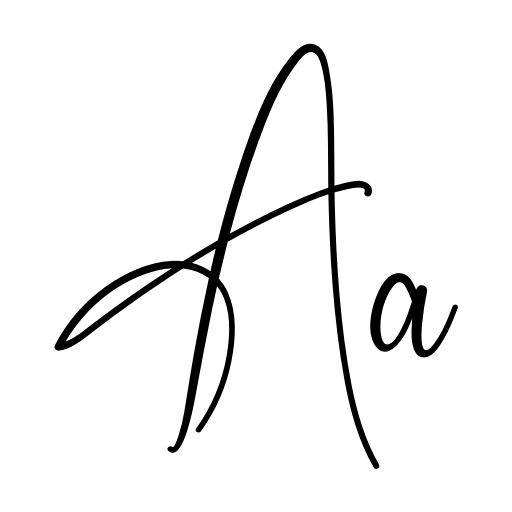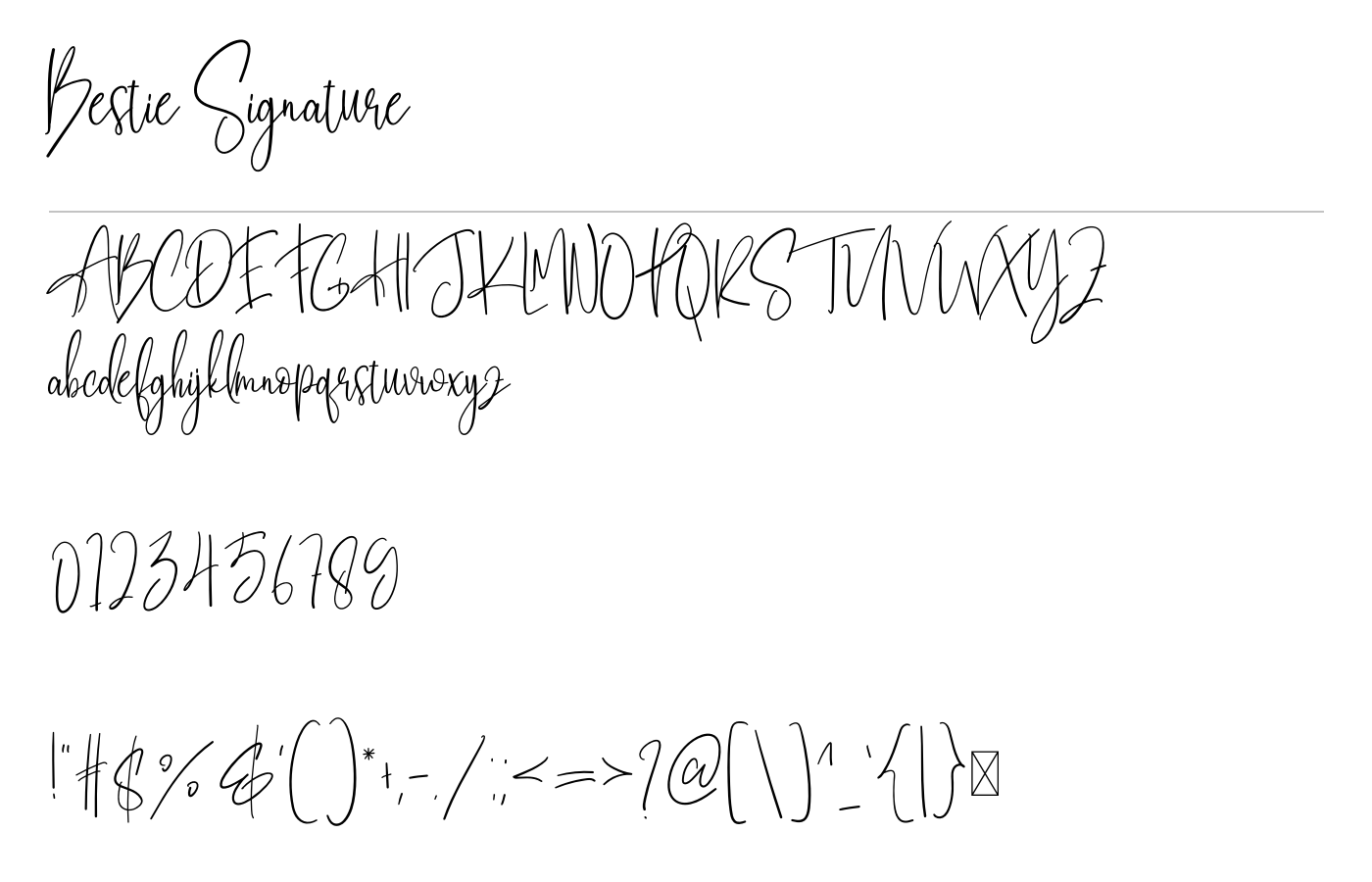
Bestie Signature is a delicate, thin-script font that mimics elegant handwriting with a casual, airy feel. Its tall, narrow letterforms and flowing, connected strokes make it perfect for branding, invitations, and stylish headlines that want to convey a personal, sophisticated touch. This font works best where a light, graceful signature style is desired, adding charm and a modern, artistic vibe.
Bestie Signature Font
About Bestie Signature Font